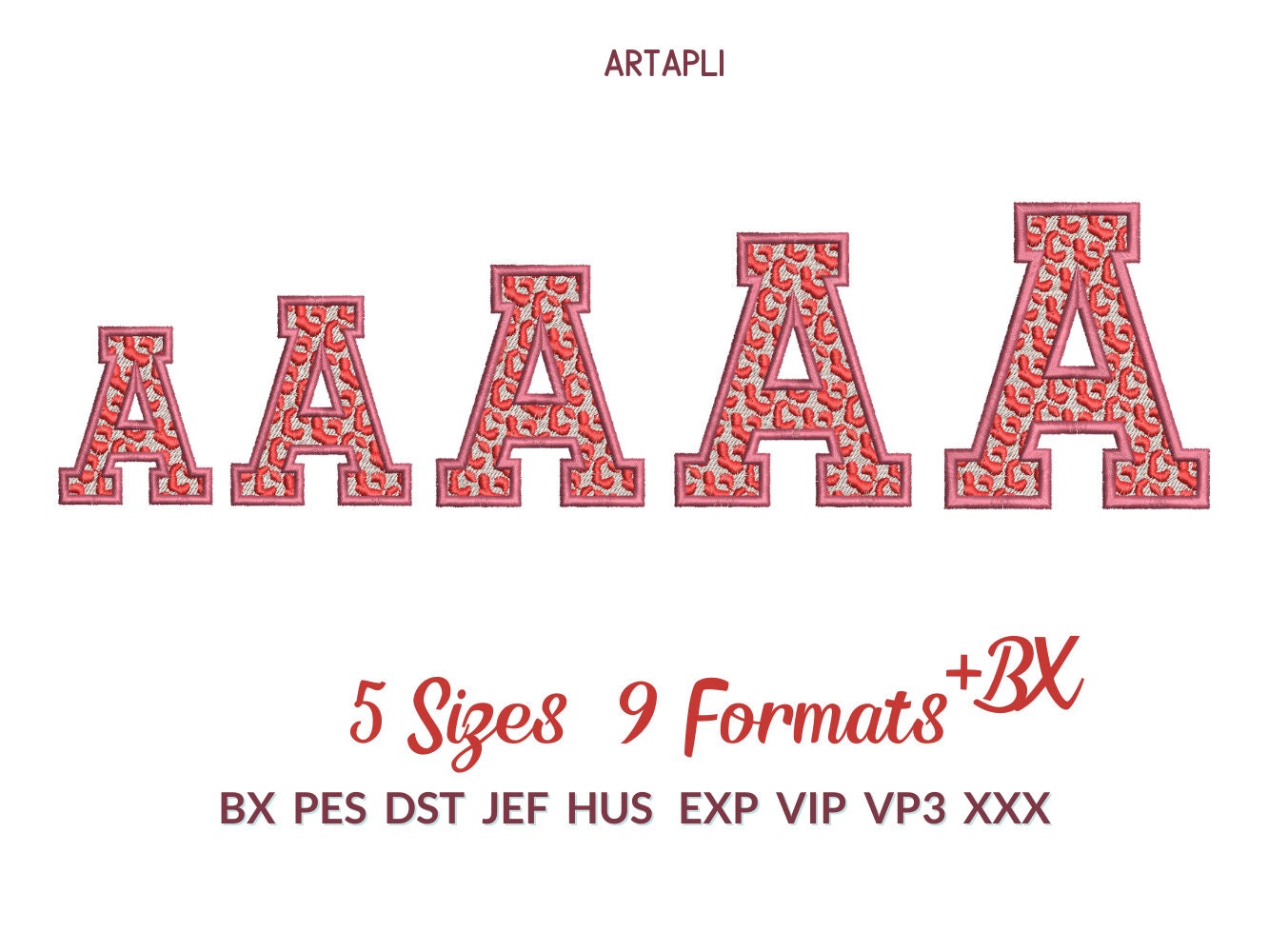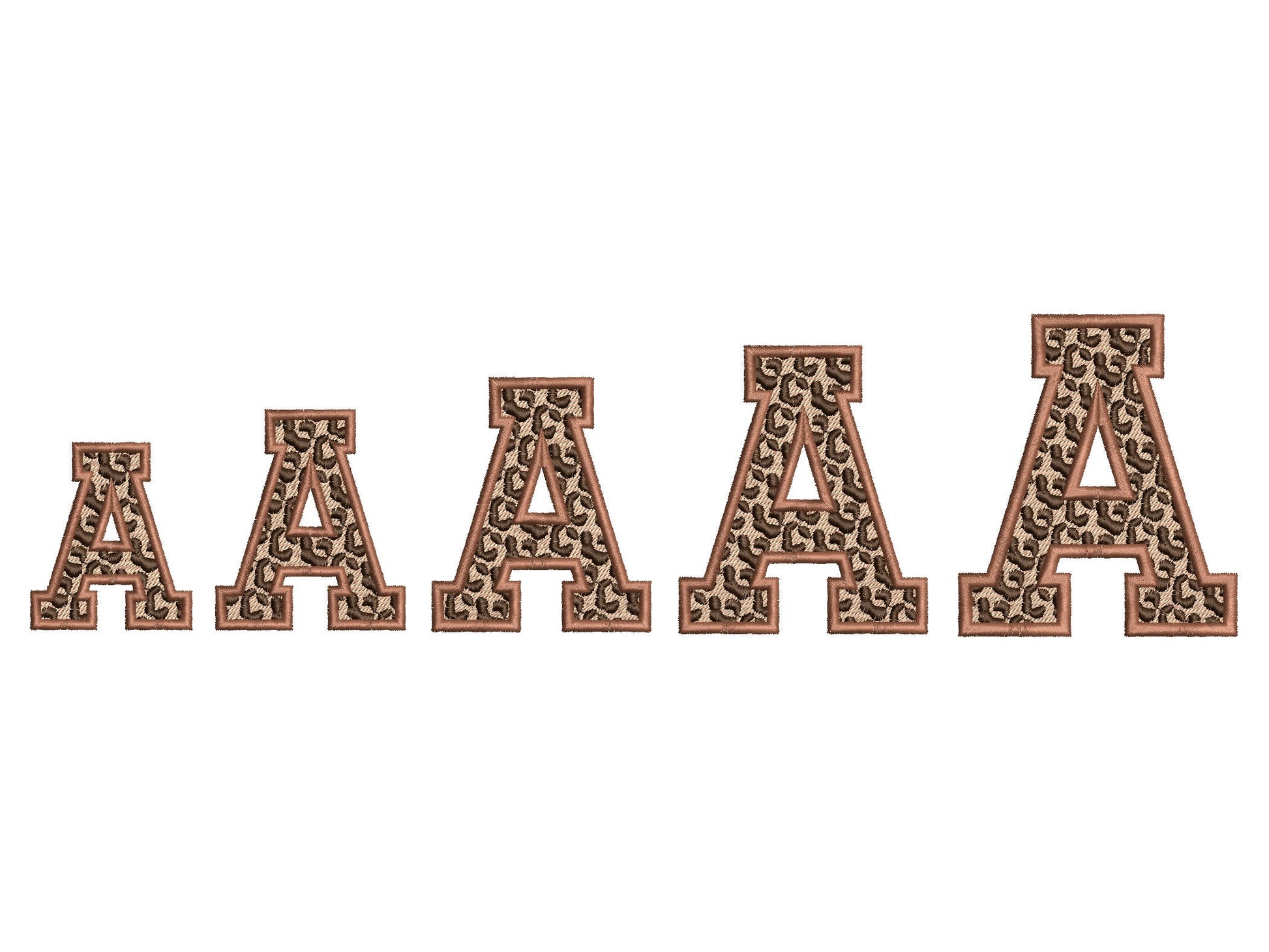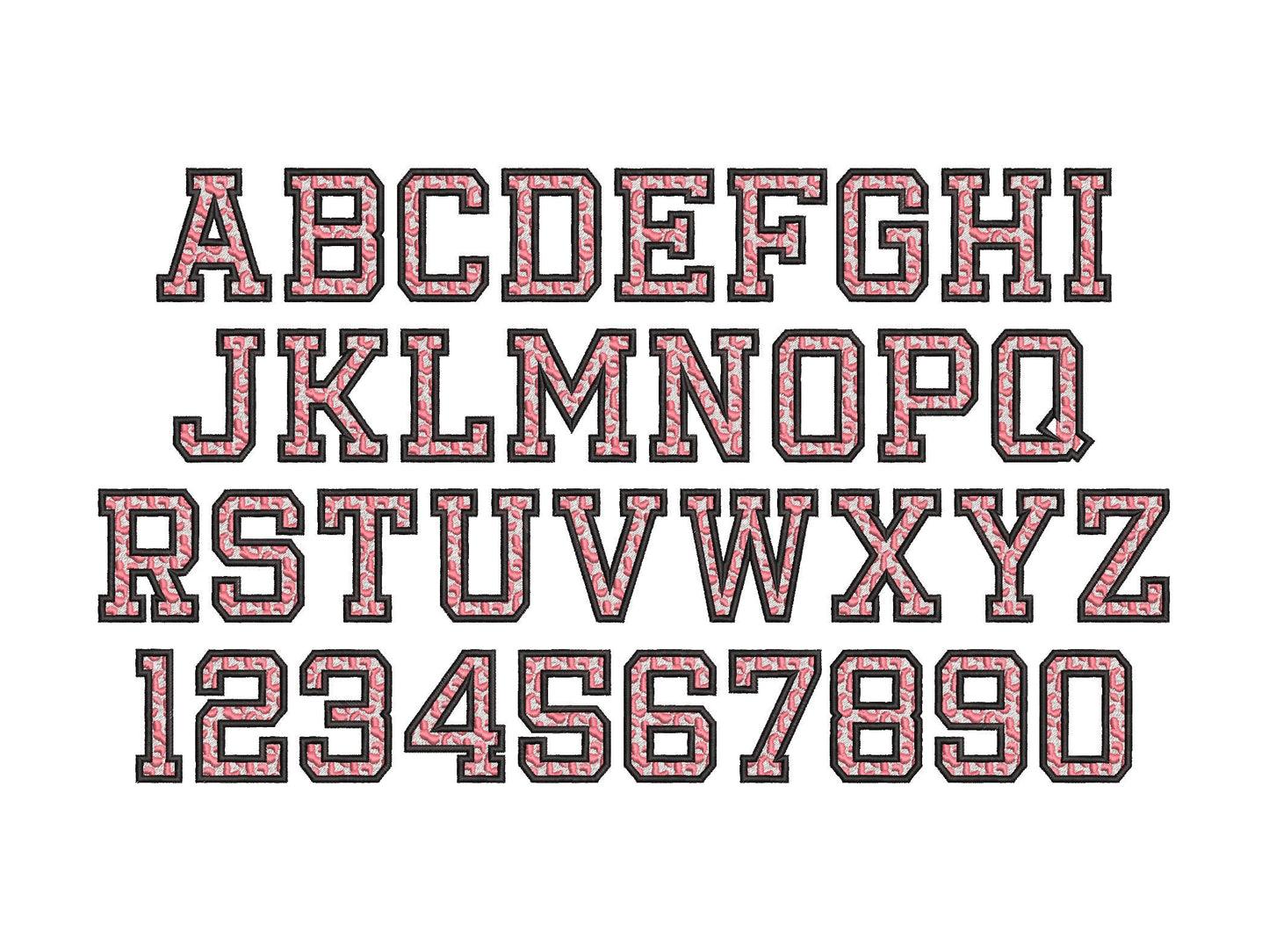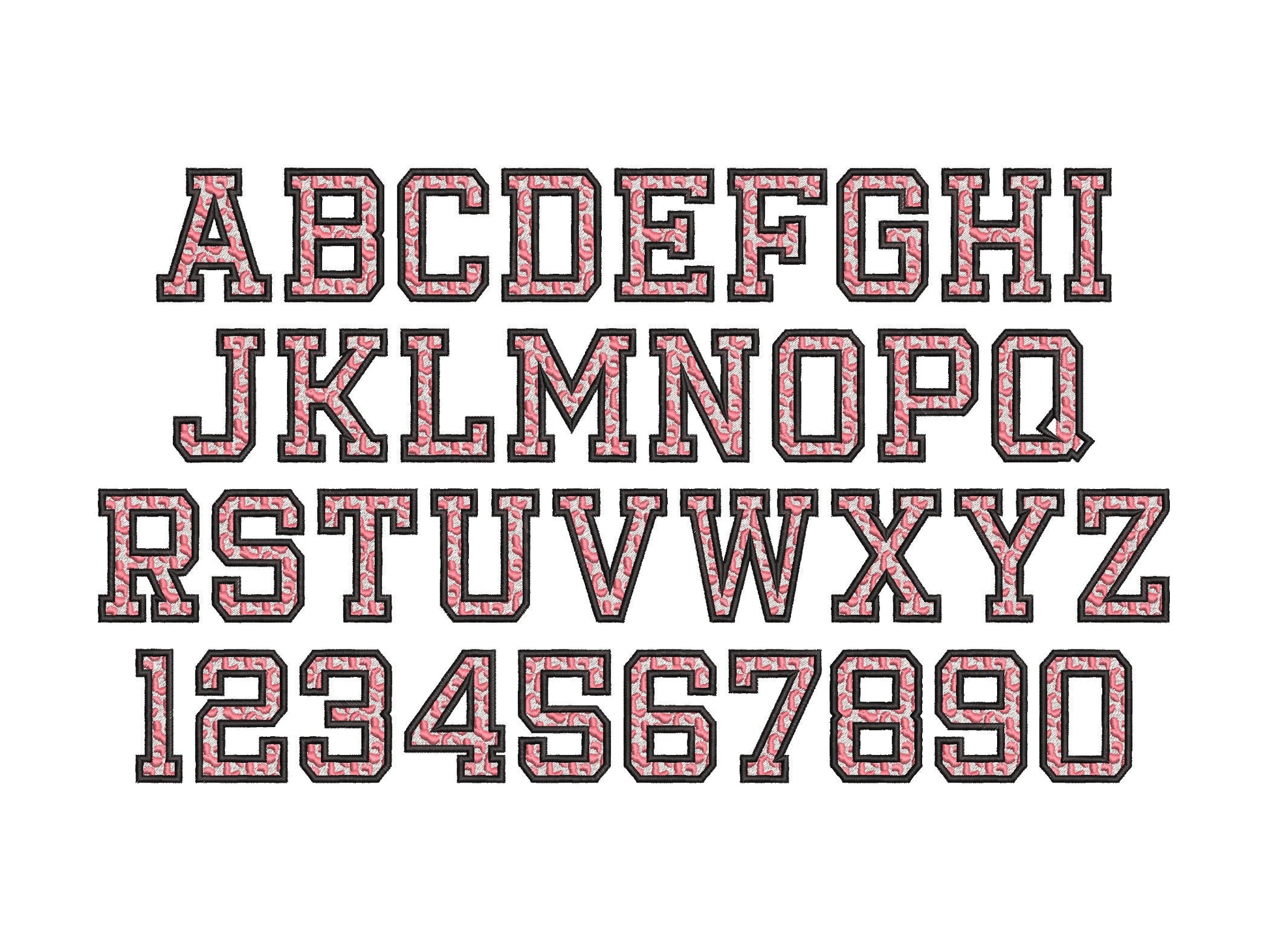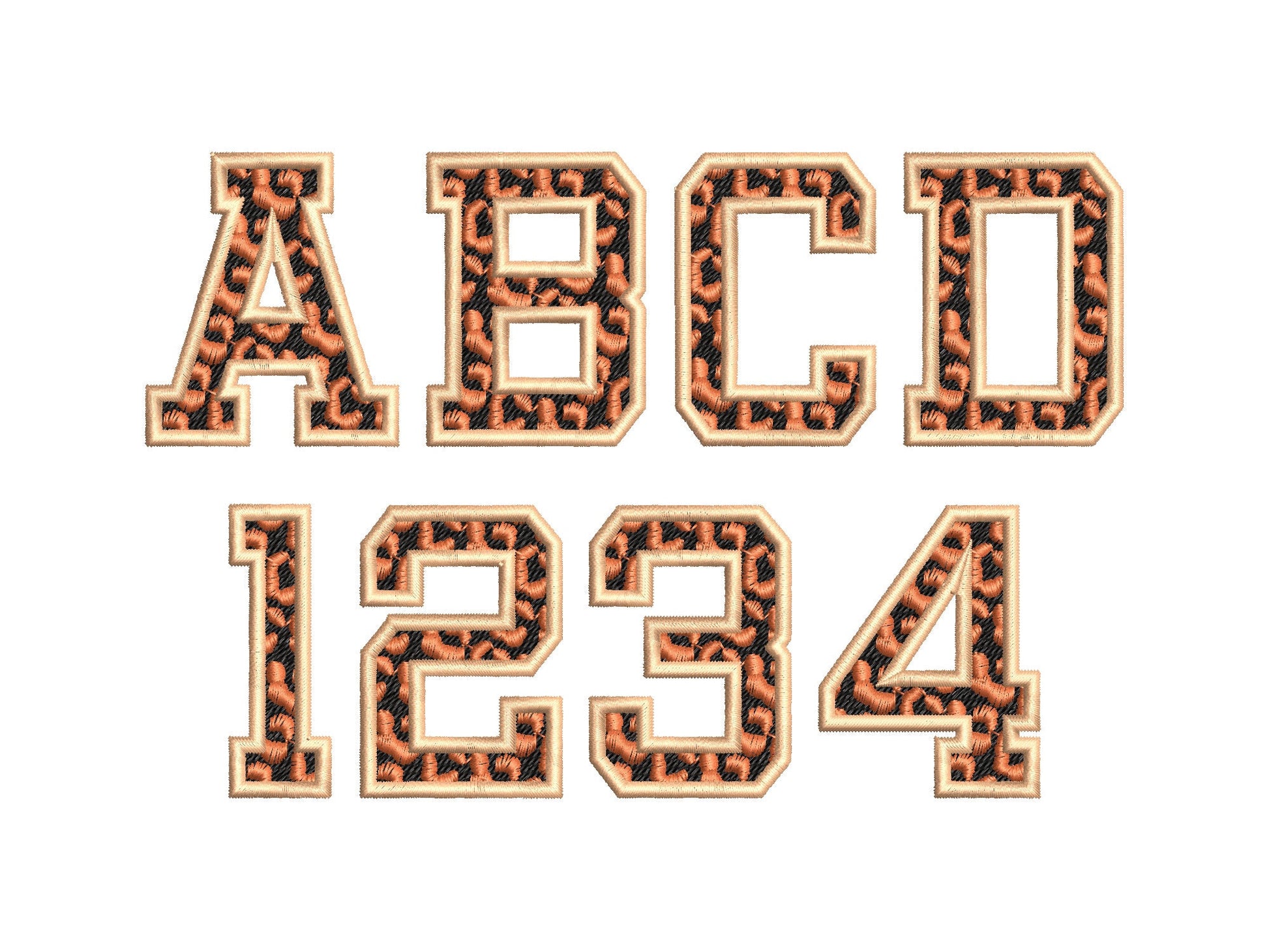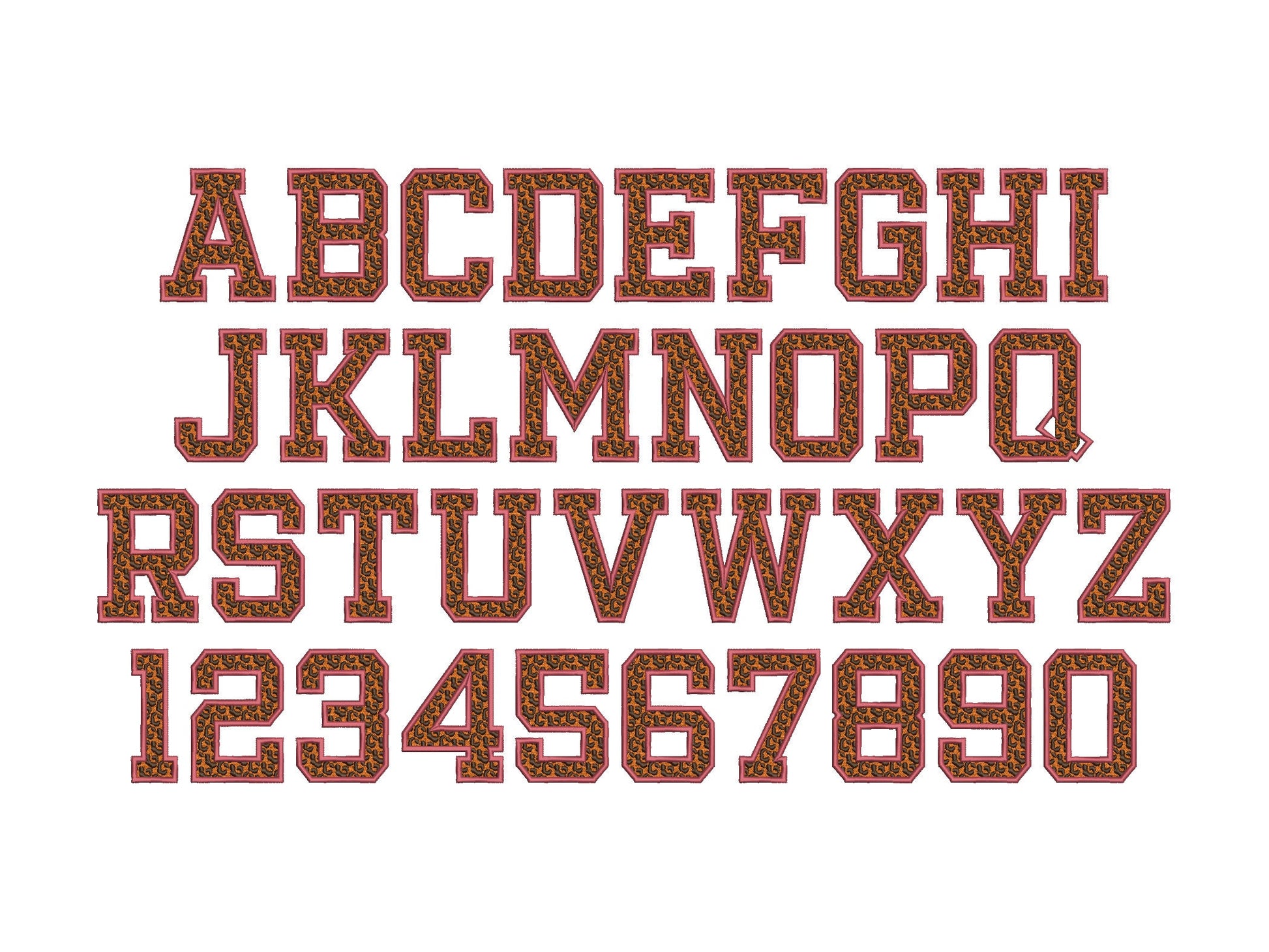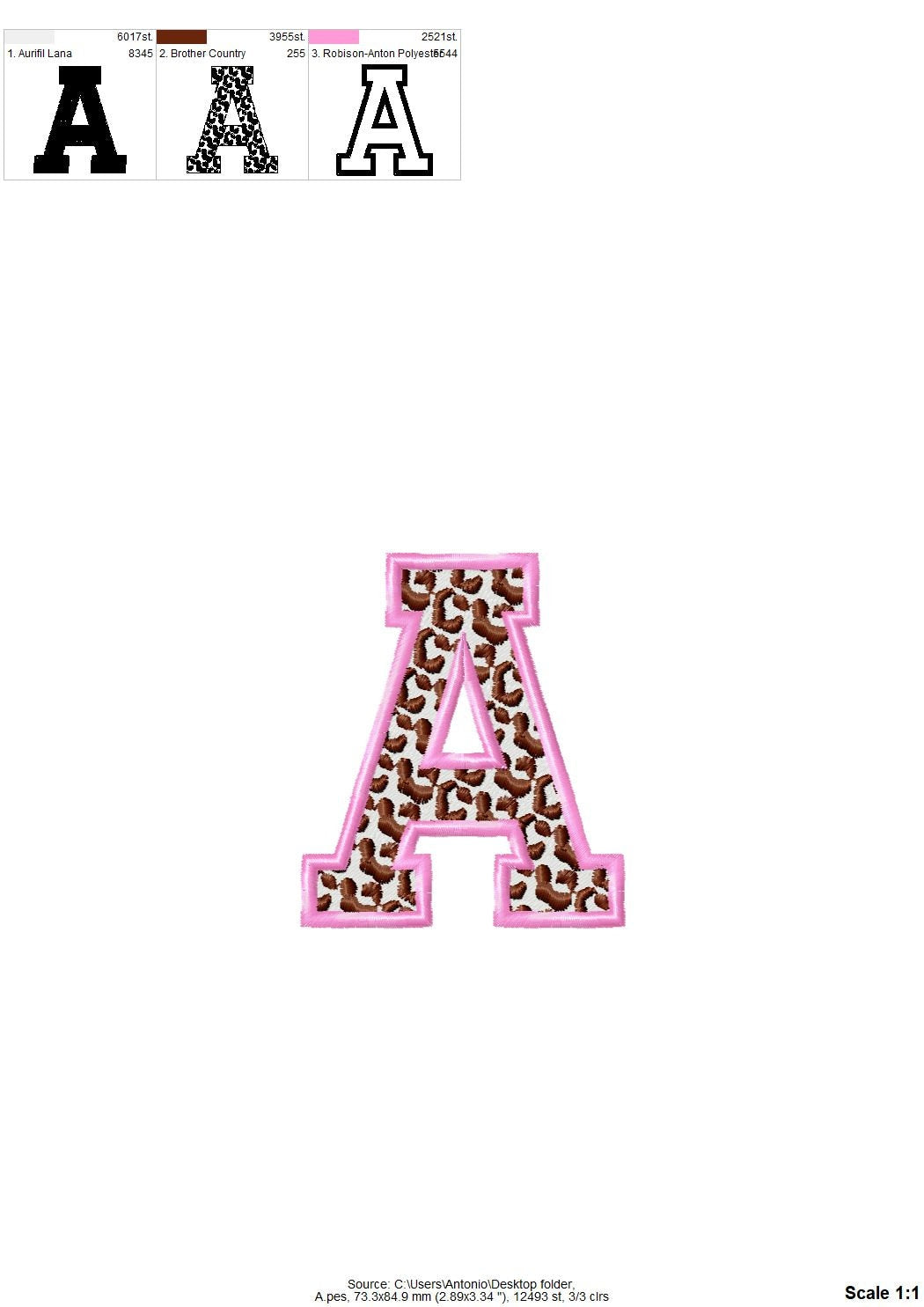
Leopard Spots Varsity Font
Uppercase letters A to Z, numbers 0 to 9 and a slash, in five sizes: 2, 2.5, 3, 3.3 and 3.7 inches.
- Leopard spots varsity font, 3 colors
- Uppercase A-Z, numbers 0-9
- 5 sizes, 2 to 3.7 in